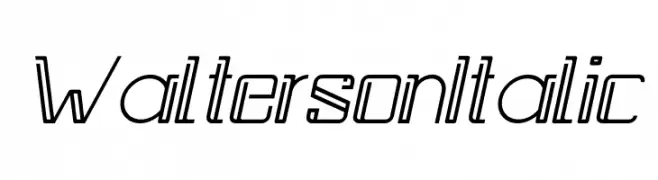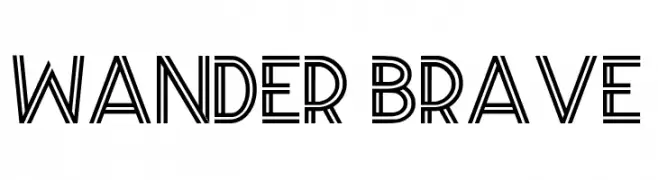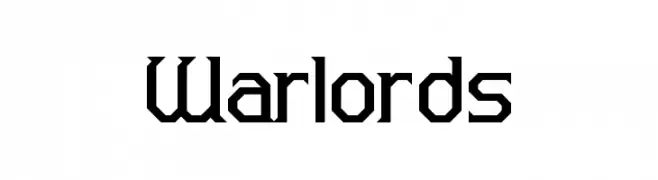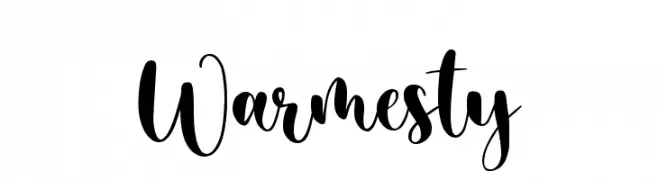
• Walterson Italic
A modern, geometric italic font with a futuristic and technical style.
• Wander Brave
A bold, geometric font with a double-line structure and a modern, dynamic style.
• Want You Back
A whimsical, hand-drawn script font with playful curves and artistic flair.
• Warlords
A bold, angular font with a geometric and aggressive style.
• Warlords Bold
A bold, angular font with a geometric and modern style.
• Warlords Italic
A bold, angular italic font with a futuristic and dynamic style.
• Warmesty
A lively and flowing script font with elegant, cursive letterforms.
• Washingtone Free
An elegant, cursive font with flowing, ornate characters.
• water drop
A bold, decorative font with rounded, water droplet-like shapes.
• Water Street Detour Regular
A bold and impactful font with strong, well-defined characters.